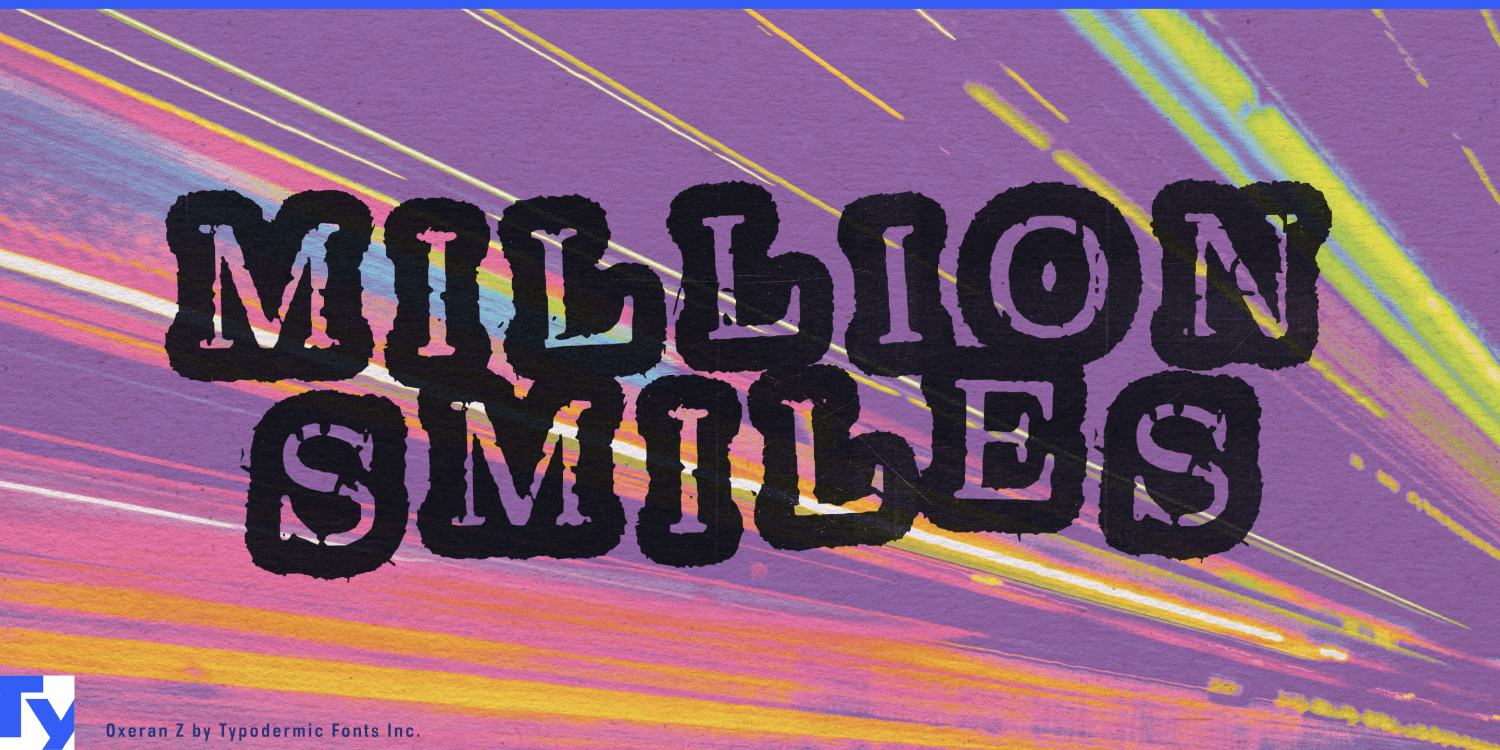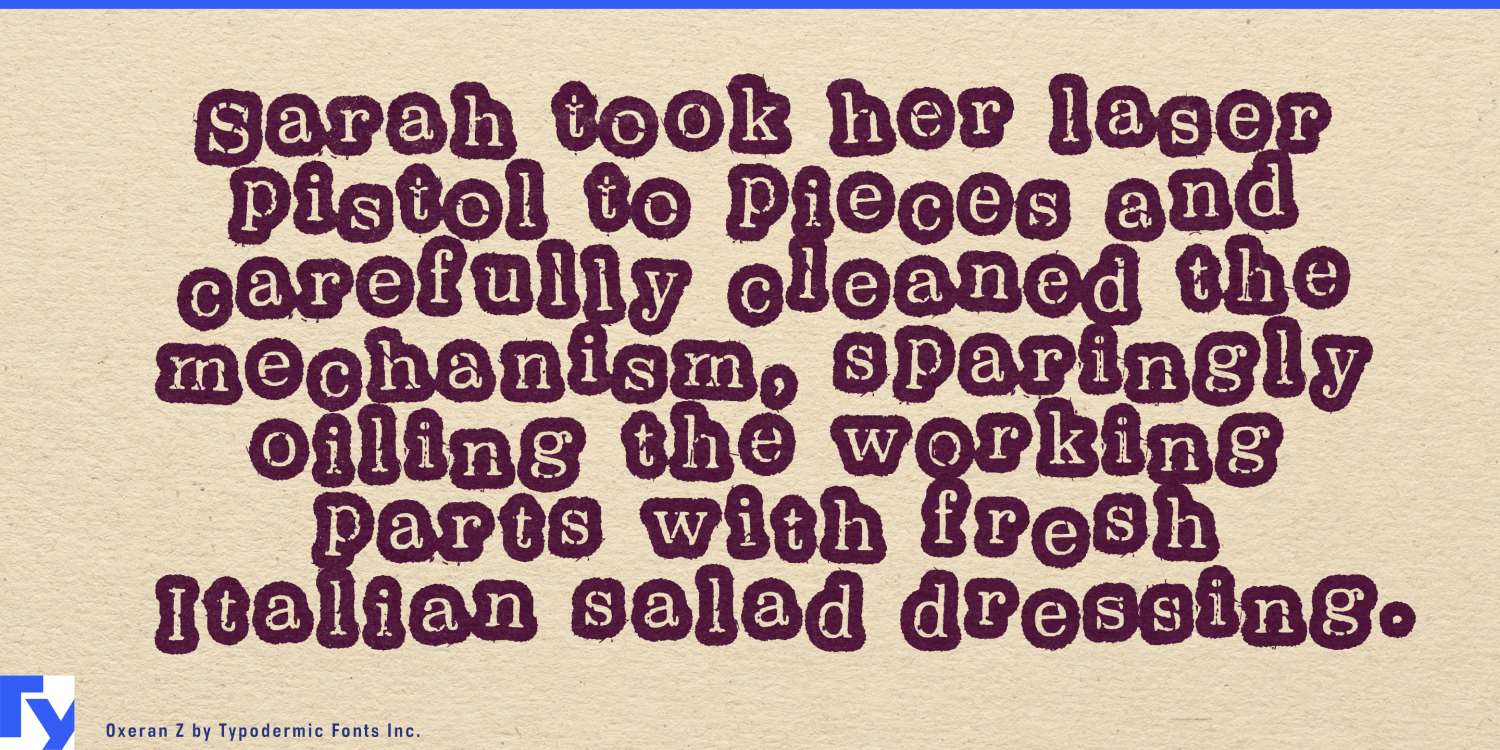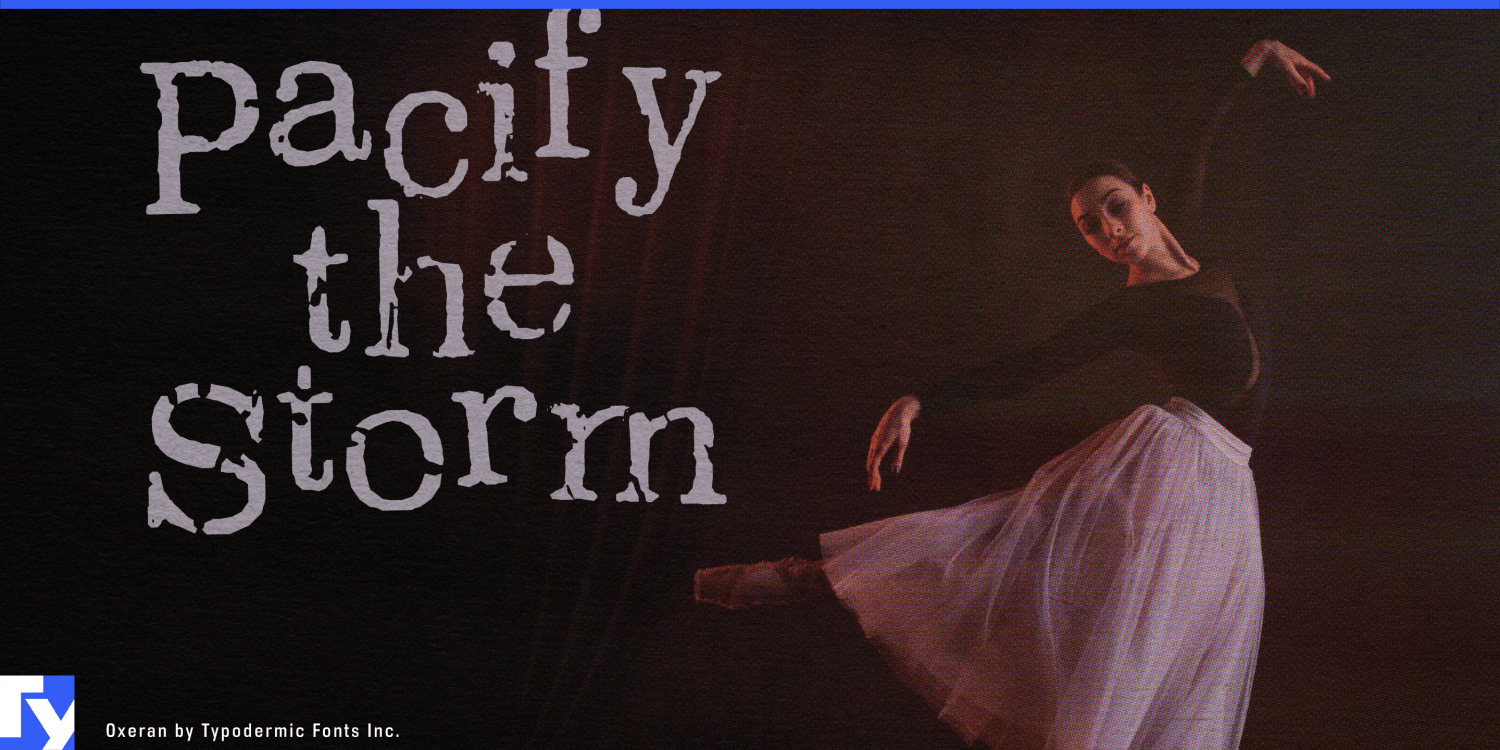
About Oxeran
Oxeran and Oxeran Z: typographic anarchy unleashed. These Typodermic Fonts creations aren’t just typefaces—they’re a middle finger to convention, a primal scream etched in pixels. Forget polished perfection. Oxeran and Oxeran Z revel…